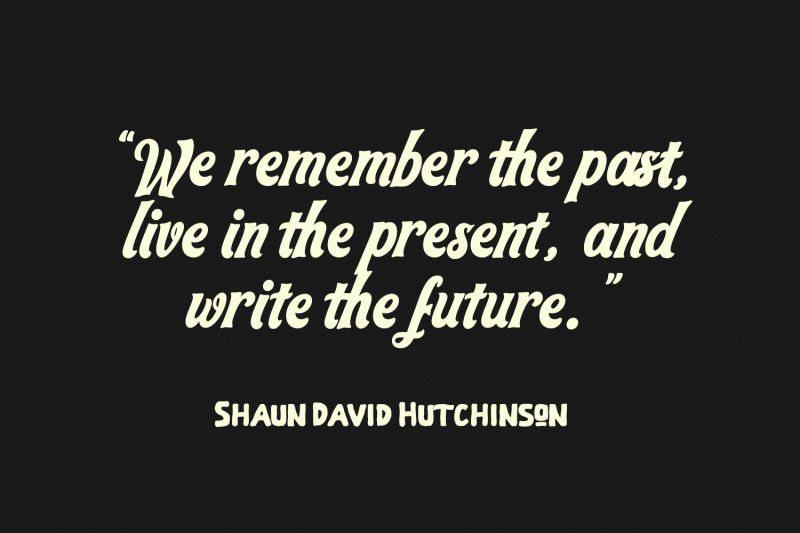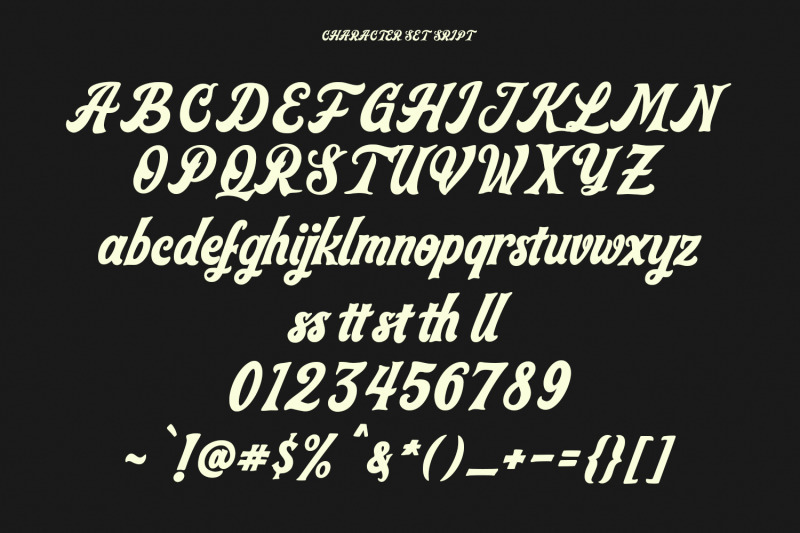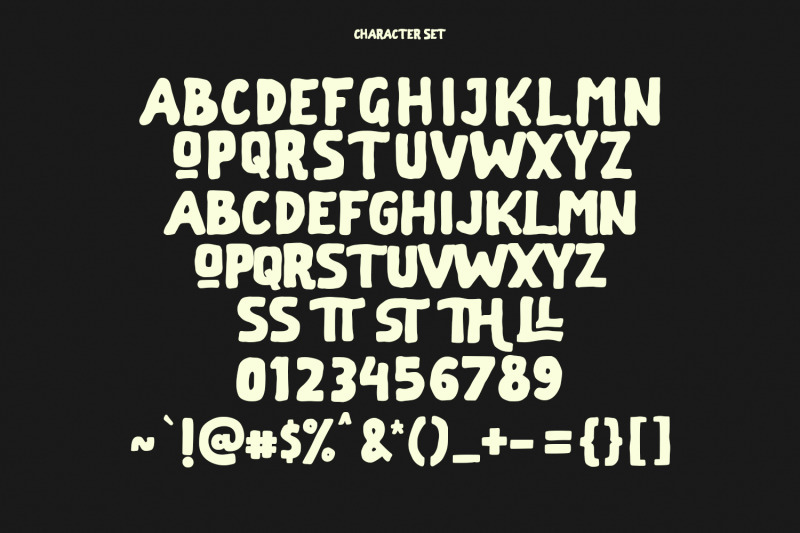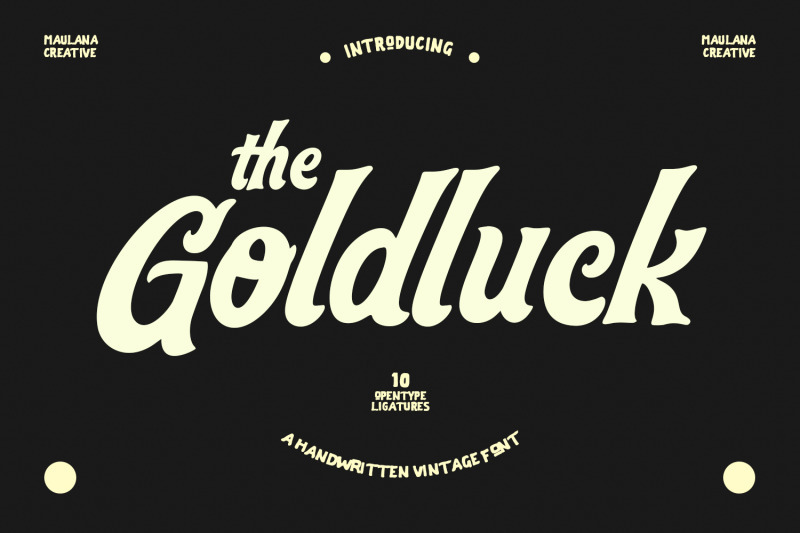
Freebie Wednesday: Handwritten Font Goldluck
FREE Goldluck Handwritten Font by MaulanaCreative!
Goldluck is a 70’s retro script font with a bold slant stroke, fun characters, ligatures, and alternates! Make stunning designs that will be the talk of the town with this font! Available in OTF and TTF formats.